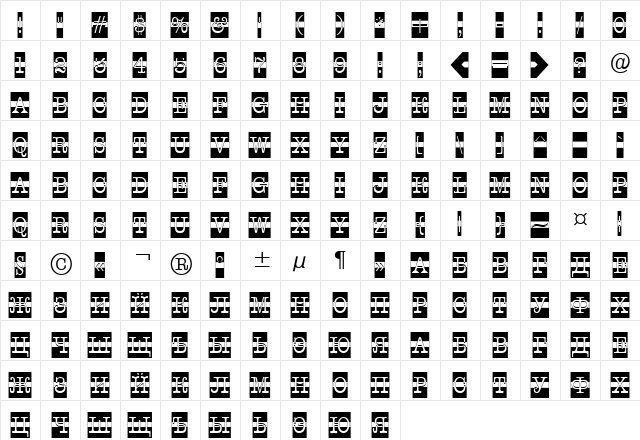
a_OldTyperCmDcWStr Regular Font Preview
a_OldTyperCmDcWStr Regular
a_OldTyperCmDcWStr Regular Font Details
Design Context for a_OldTyperCmDcWStr Typeface
a_OldTyperCmDcWStr is a composed and adaptable typeface that performs quietly and consistently across a wide range of design contexts.